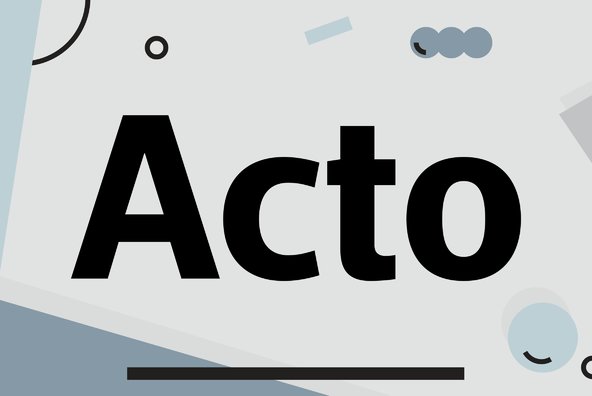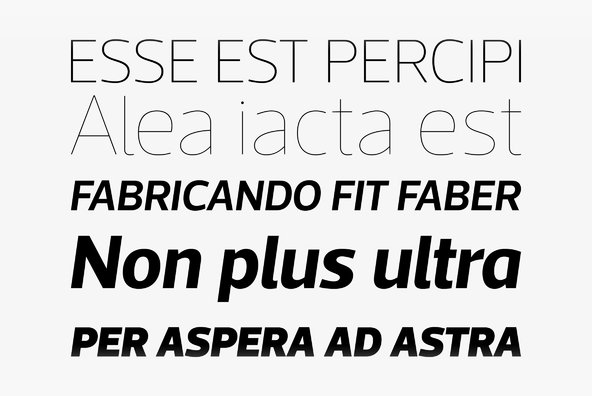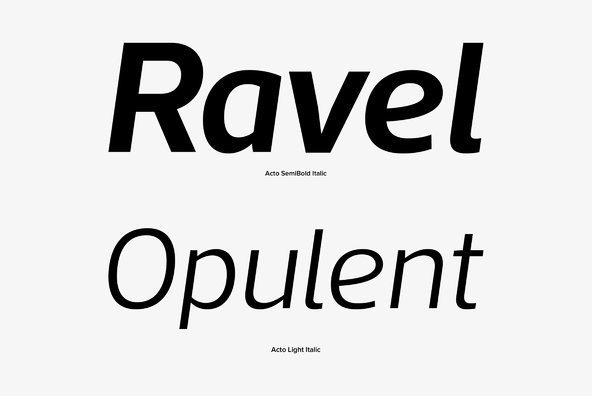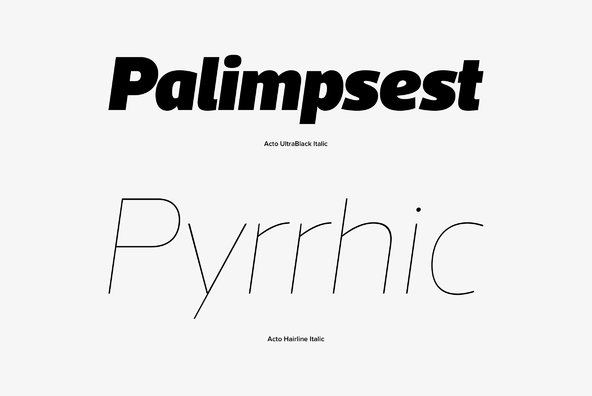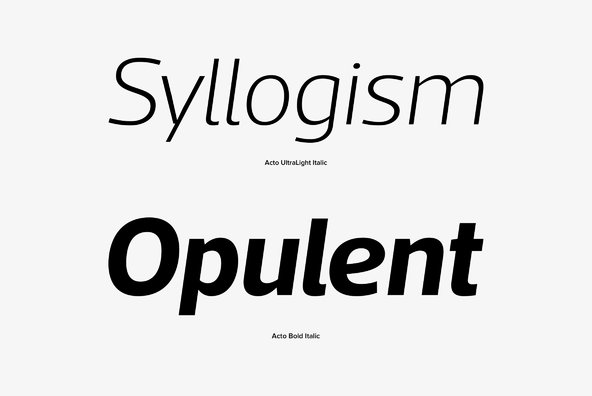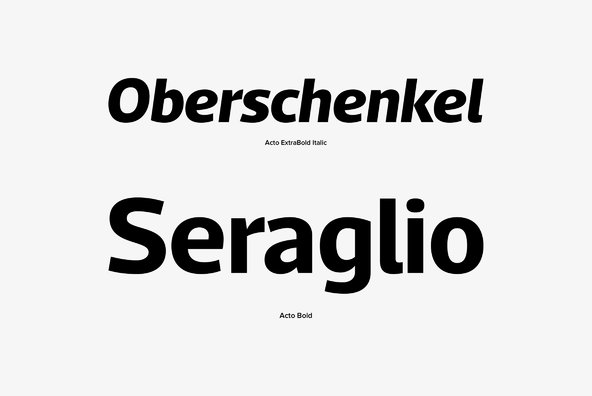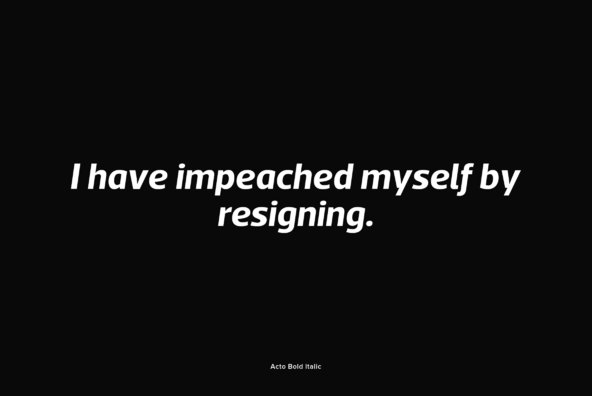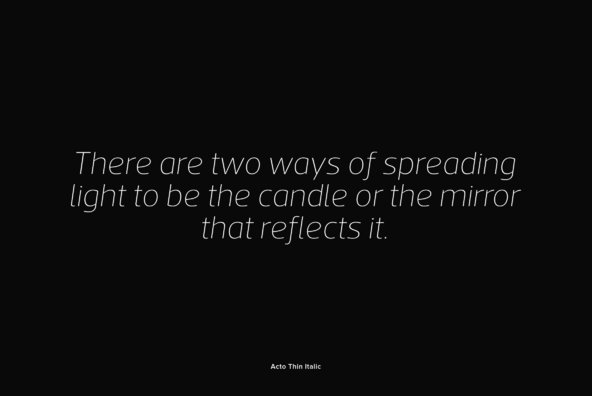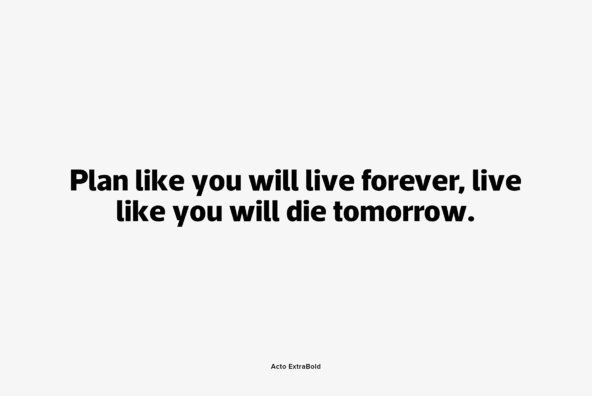
Foundry: DSType
Acto is a type system designed as the sans serif counterpart of the previous released Acta. Both type families were designed in 2010 for the redesign of the chilean newspaper La Tercera, but unlike some of our previous fonts (i.e.: Leitura) Acto doesn't exactly match Acta in terms of structure, so they can live on their own. Acto is our first sans where the uppercase has the same height as the ascenders, so we decided to avoid common problems like the confusion between the I and the l, by drawing a curved l and we kept that spirit by removing the spurs on the b, g and q, resulting on a more warm typeface than Prelo, for instance. At the end is a very powerful sans family, with eleven weights with matching italics, for editorial and corporate design.